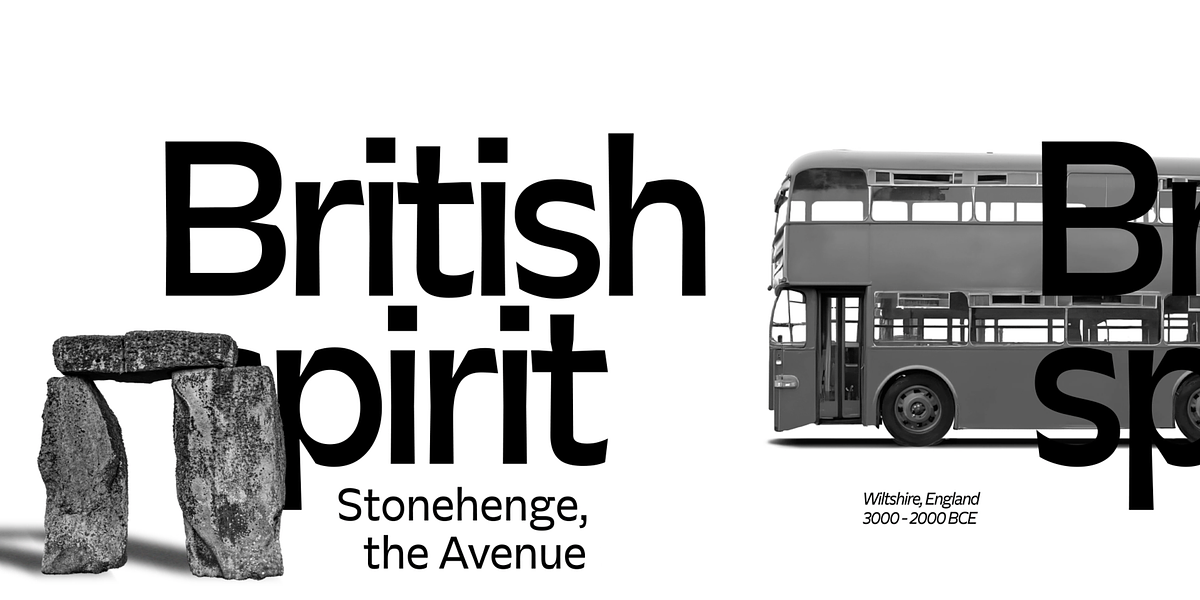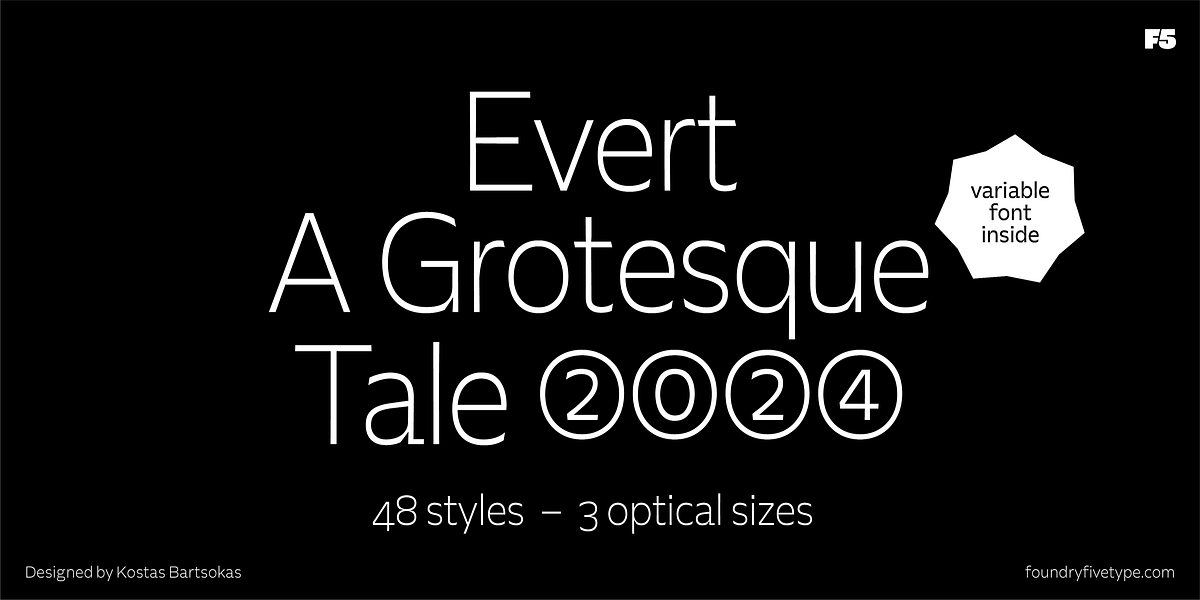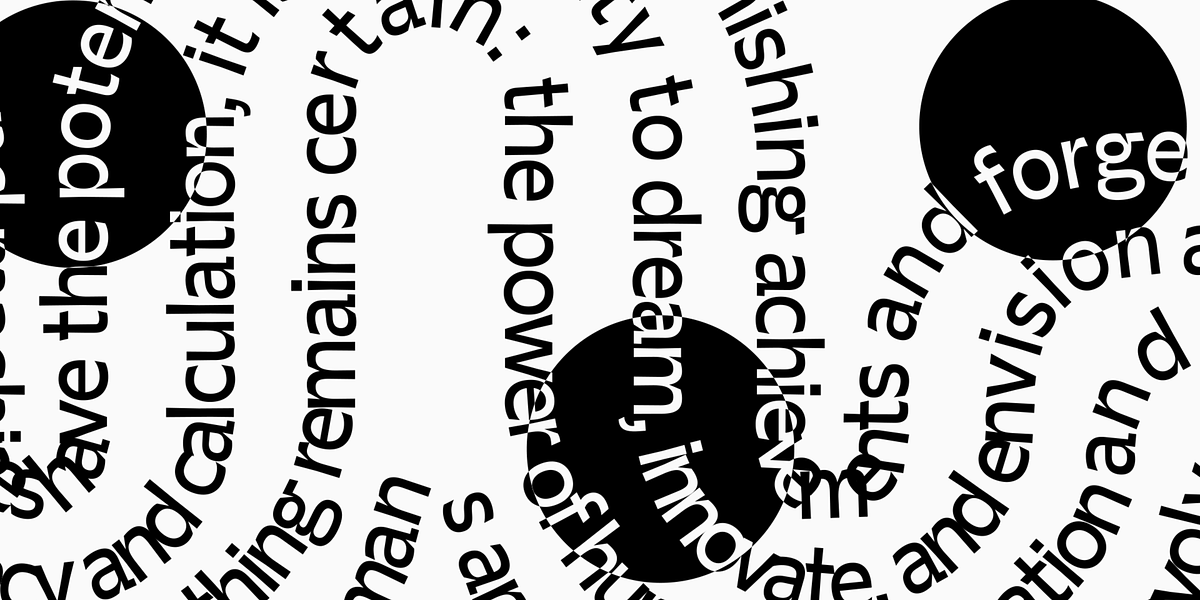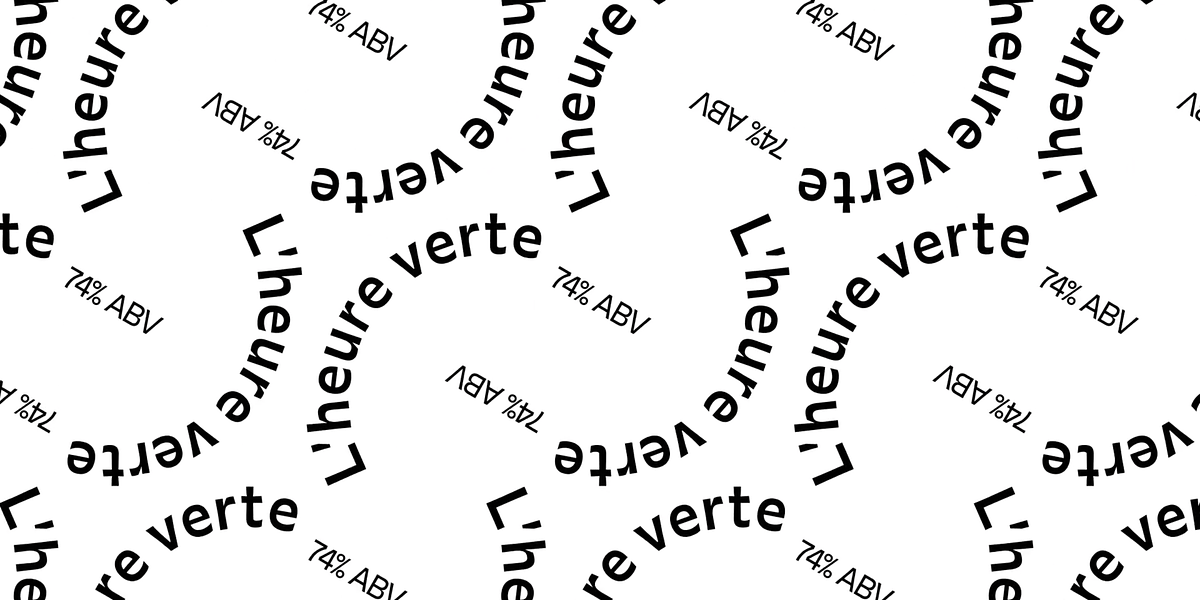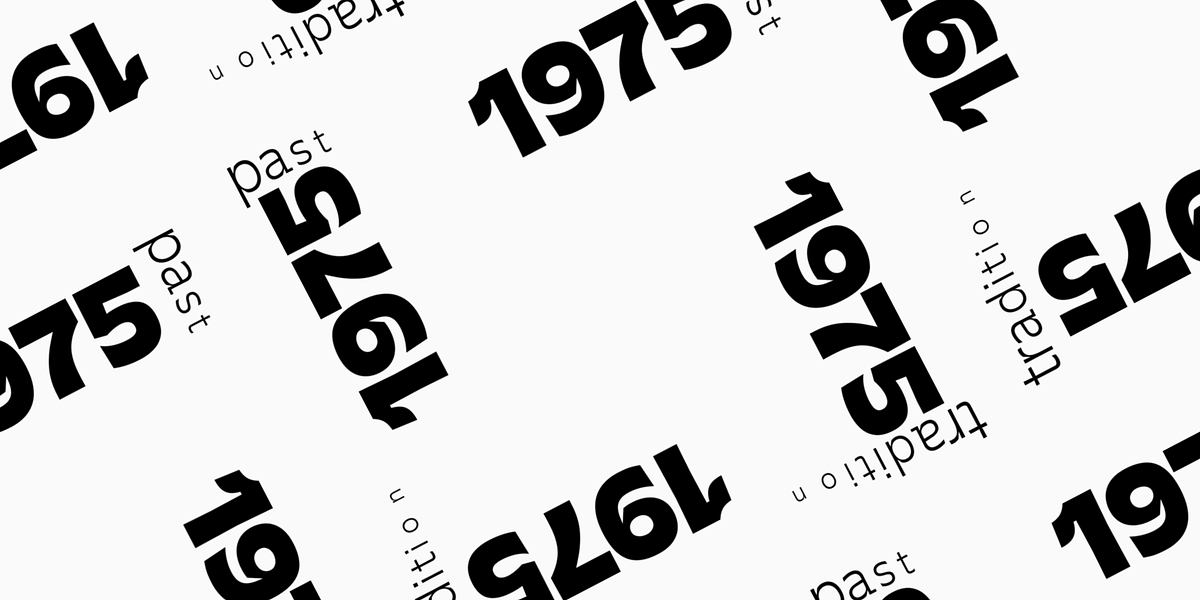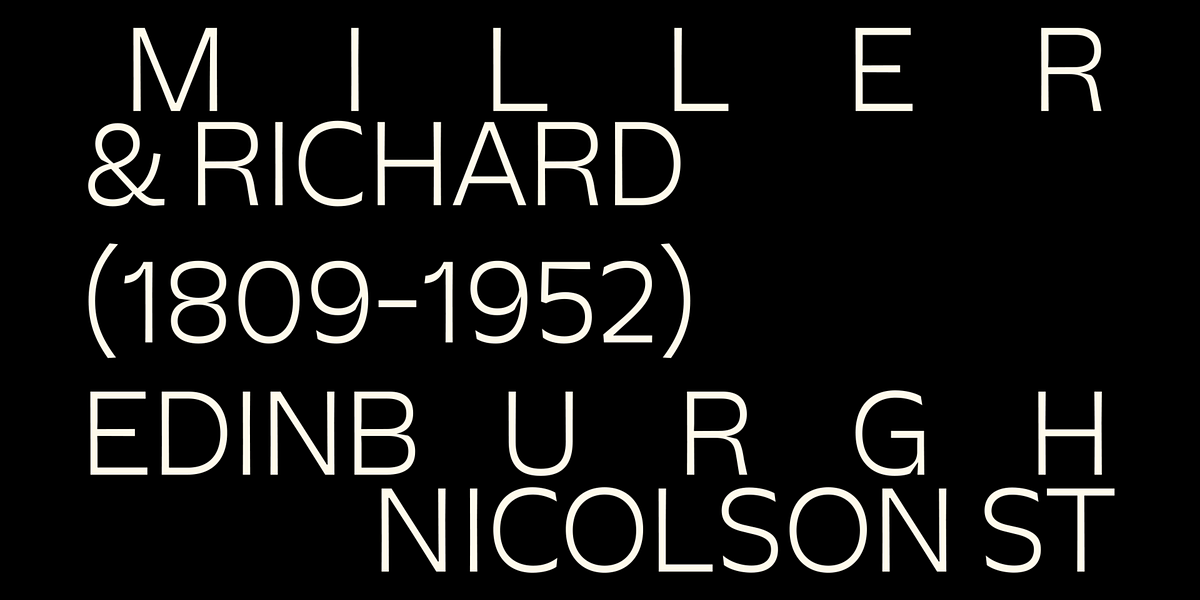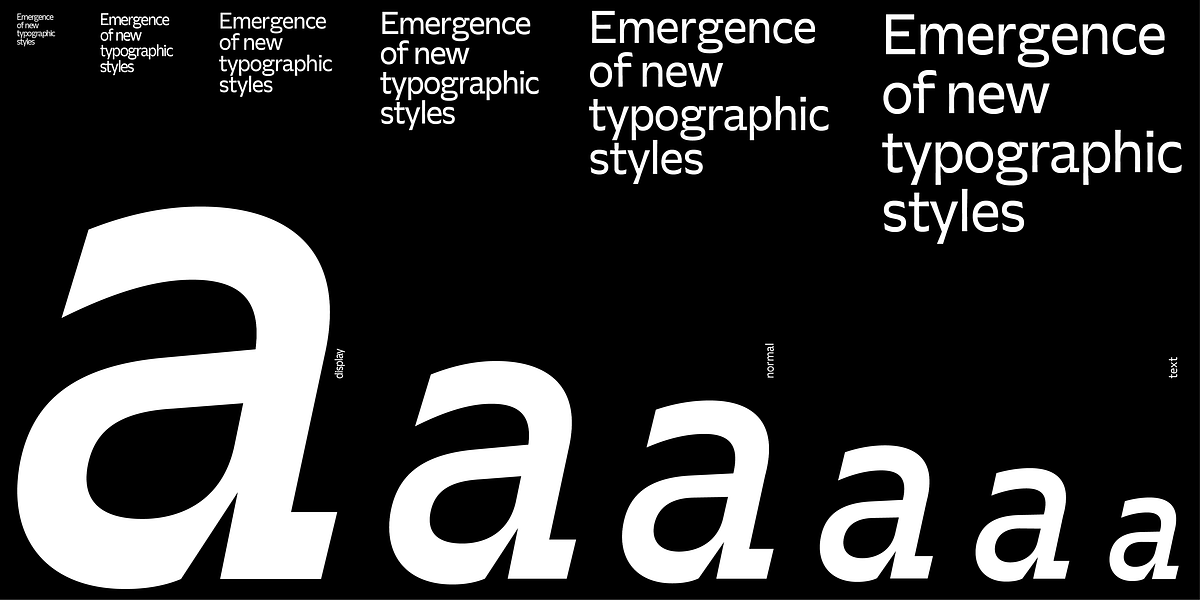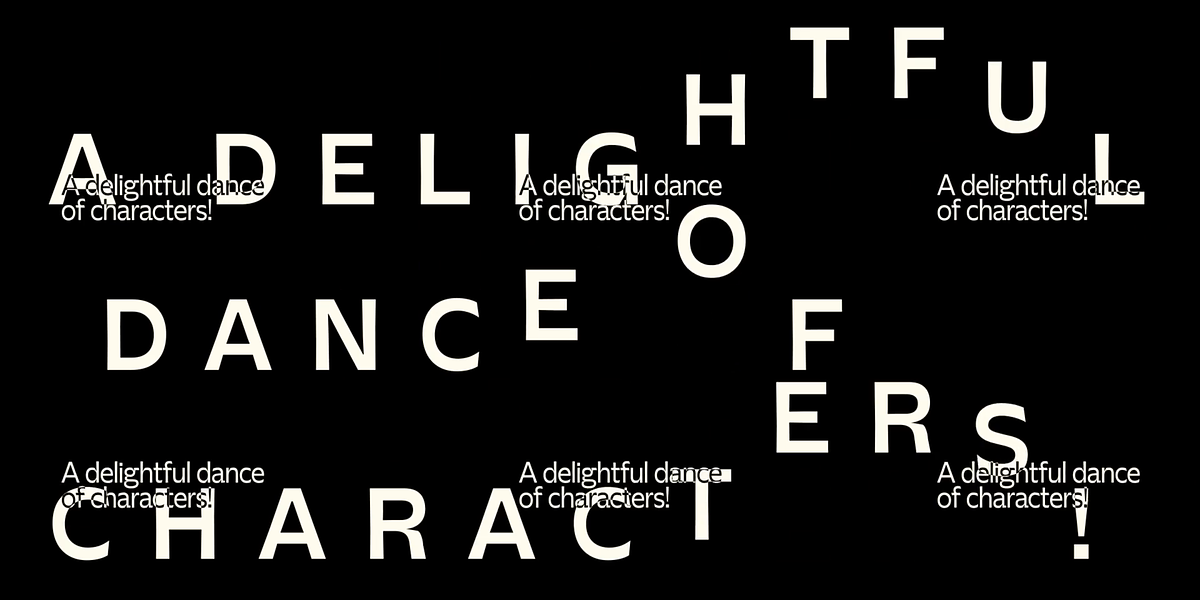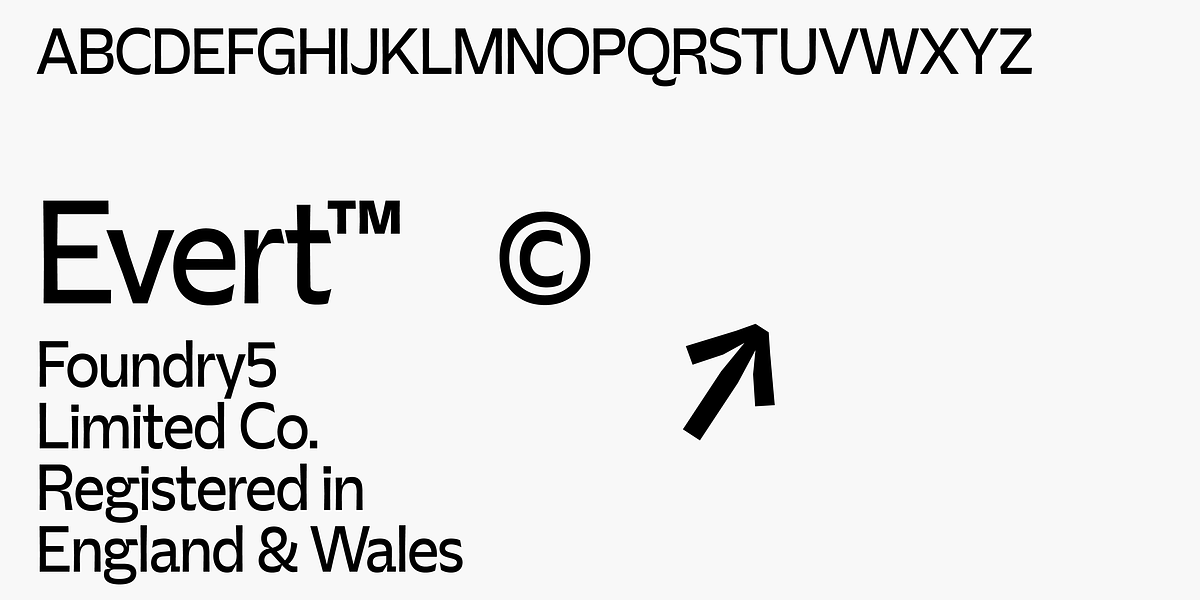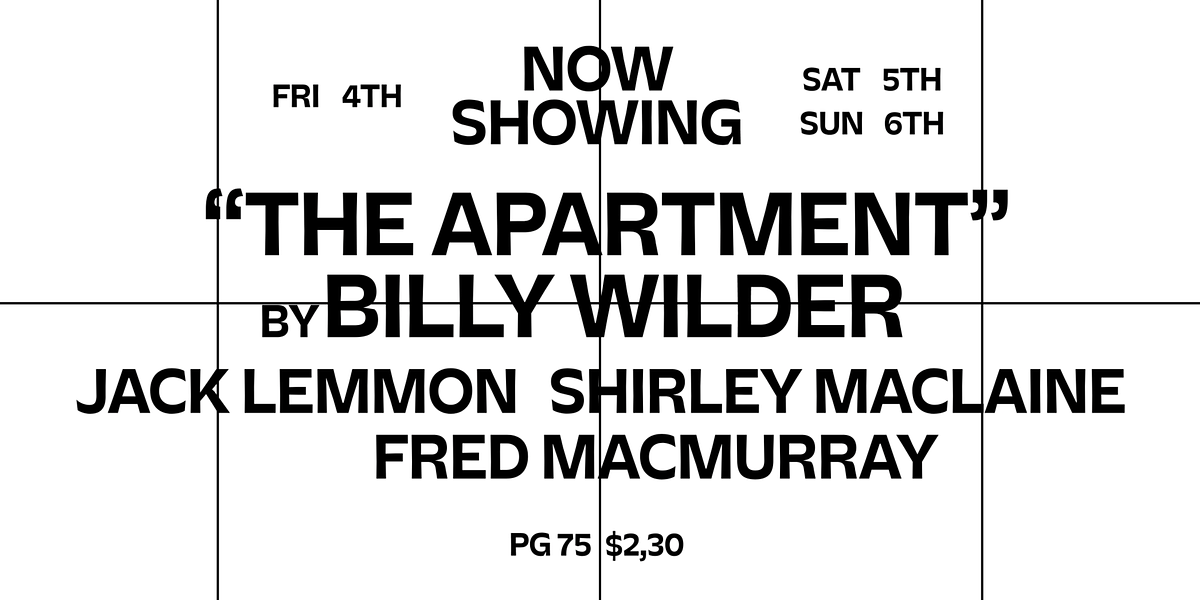
Evert Latin
Evert is a grotesque sans serif typeface inspired by classic designs like Miller & Richard's Grotesque No.1 and Roger Excoffon’s Antique Olive, while also incorporating elements of modern typography. It aims to blend tradition and innovation with its unique mix of subtle rigidity and humanistic elegance. The font comes in 48 styles and three optical sizes (text, display, and plain), making it versatile for a wide range of applications from lengthy documents to eye-catching displays. Features include localized forms, old-style numerals, tabular numerals, and discretionary ligatures.